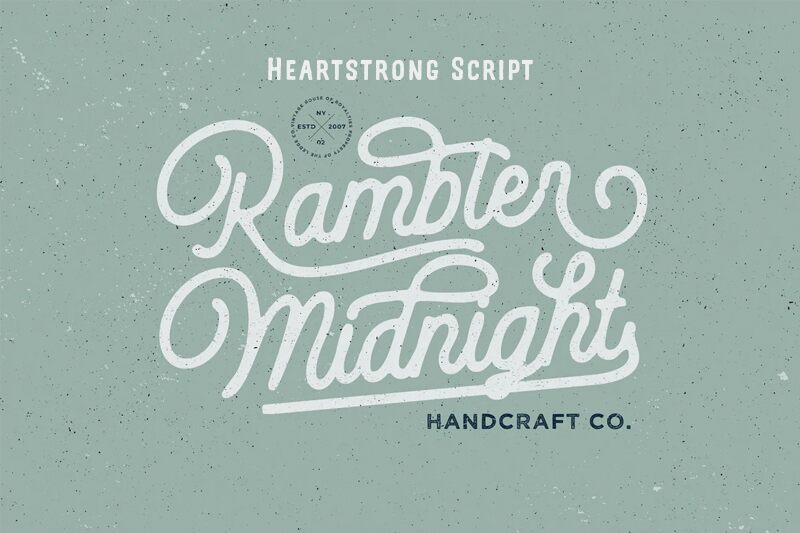
Heartstrong Script font family by Get Studio is an expressive and energetic script with a hand-written and casual vibe. Its 2 font styles offer diversity, nostalgic appeal, and a welcoming presence suitable for businesses or personal projects. The font family was designed by Get Studio and can be downloaded as digital files on your own device.
The ideal project where Heartstrong Script would fit perfectly is in a vintage inspiration focus. The other use cases are marketing, social media, business cards, flyers, ads, and visual identity. You can also use it for headlines and much more.